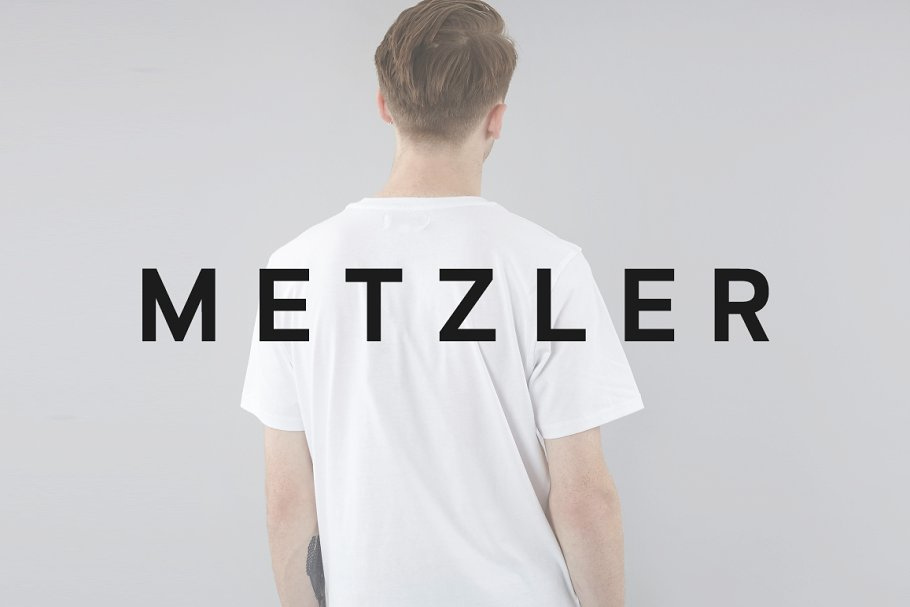
Metzler Font
Metzler Font is perfect for traditional German butcher shops, artisanal meat processing companies, authentic delicatessen branding, heritage food markets, traditional sausage makers, and old-world culinary establishments. Its robust character makes it ideal for craft beer breweries, German restaurants, traditional food festivals, artisan charcuterie brands, heritage cooking schools, and any project requiring authentic craftsmanship with Germanic culinary tradition and old-world butcher shop authenticity.
This font is exciting because it embodies the honest craftsmanship and traditional skills of master butchers while delivering contemporary functionality for artisanal food communications that celebrate quality and heritage. The solidly constructed letterforms evoke images of traditional meat markets, skilled craftsmen, and the time-honored traditions of German food culture, creating powerful connections that resonate with audiences seeking authentic quality and traditional culinary excellence.
The Metzler Font family typically includes Regular, Bold, and decorative variations with traditional flourishes, craft-inspired ornaments, and Germanic decorative elements that enhance its artisanal personality. This comprehensive collection enables food professionals to create authentic brand systems that maintain traditional credibility while providing creative flexibility for various culinary applications requiring heritage authenticity and craft market positioning.
Whether you're developing identity systems for traditional food businesses, creating materials for culinary heritage festivals, or designing packaging for artisanal meat products, Metzler Font Free Download delivers the traditional craftsmanship and Germanic authenticity that connects with food enthusiasts worldwide. Its honest presence ensures memorable brand recognition across digital platforms and print materials, making it perfect for websites, mobile applications, and culinary campaigns that celebrate traditional food crafts, Germanic heritage, and the enduring value of authentic artisanal quality with contemporary relevance and timeless culinary tradition.